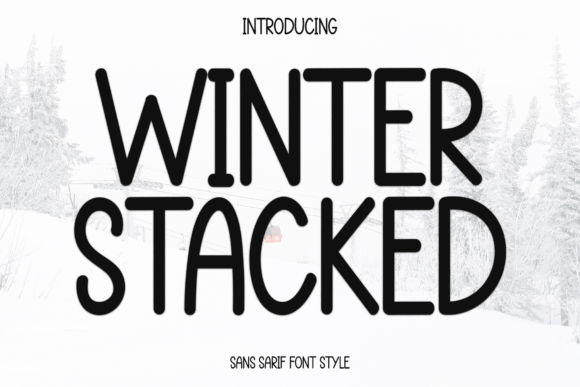
Winter Stacked Font: A Playful Sans-Serif Handwritten Typeface for Cheerful Designs
As the winter season approaches, designers and artists are on the lookout for typography that captures the festive and uplifting spirit of the time. If you’re searching for a font that can add a playful touch to your winter-themed designs, look no further than Winter Stacked. This delightful sans-serif handwritten typeface is perfect for creating cheerful and uplifting wall art, posters, and prints that bring a positive atmosphere to any space.
What is Winter Stacked Font?
Winter Stacked is a modern sans-serif handwritten font designed to evoke a sense of playfulness and joy. Its unique stacked lettering style gives it a distinctive look that’s both fun and eye-catching. The font’s clean lines and simple shapes make it highly legible, while its friendly and approachable feel makes it perfect for a wide range of design applications.
Key Features of Winter Stacked Font
- Playful sans-serif design: Winter Stacked’s sans-serif design gives it a modern and fresh feel that’s perfect for creating contemporary designs.
- Handwritten style: The font’s handwritten style adds a personal touch to your designs, making them feel more approachable and friendly.
- Stacked lettering style: The unique stacked lettering style gives Winter Stacked its distinctive look and makes it stand out from other fonts.
- Highly legible: Despite its playful design, Winter Stacked is highly legible, making it perfect for use in a wide range of design applications.
Uses for Winter Stacked Font
Winter Stacked is a versatile font that can be used in a wide range of design applications, including:
- Wall art: Create cheerful and uplifting wall art with Winter Stacked, perfect for adding a personal touch to any room.
- Posters: Use Winter Stacked to create eye-catching posters for events, promotions, or announcements.
- Prints: Add a playful touch to your prints with Winter Stacked, perfect for creating fun and engaging designs.
- Social media graphics: Use Winter Stacked to create engaging social media graphics that stand out from the crowd.
Benefits of Using Winter Stacked Font
There are many benefits to using Winter Stacked in your designs, including:
- Unique and eye-catching design: Winter Stacked’s stacked lettering style makes it stand out from other fonts and adds a unique touch to your designs.
- Playful and uplifting feel: The font’s playful design can bring a positive atmosphere to any space and add a cheerful touch to your designs.
- Highly versatile: Winter Stacked can be used in a wide range of design applications, from wall art to social media graphics.
- Easy to read: Despite its playful design, Winter Stacked is highly legible and easy to read, making it perfect for use in a wide range of design applications.
Tips for Using Winter Stacked Font
Here are some tips for getting the most out of Winter Stacked:
- Experiment with colors: Winter Stacked looks great in a wide range of colors, so don’t be afraid to experiment and find the perfect hue for your design.
- Play with layout: The font’s stacked lettering style makes it perfect for creative layouts and designs.
- Use it with other fonts: Winter Stacked pairs well with other fonts, so don’t be afraid to use it in combination with other typography.
- Keep it simple: While Winter Stacked is a playful font, it’s still highly legible, so keep your design simple and easy to read.
Winter Stacked is a unique and playful sans-serif handwritten typeface that’s perfect for creating cheerful and uplifting designs. Its stacked lettering style gives it a distinctive look that’s both fun and eye-catching, while its highly legible design makes it perfect for use in a wide range of applications. Whether you’re creating wall art, posters, prints, or social media graphics, Winter Stacked is a great choice for adding a playful touch to your designs.
- What is Winter Stacked font? Winter Stacked is a modern sans-serif handwritten font designed to evoke a sense of playfulness and joy.
- What is Winter Stacked font used for? Winter Stacked can be used in a wide range of design applications, including wall art, posters, prints, and social media graphics.
- Is Winter Stacked font easy to read? Yes, Winter Stacked is highly legible and easy to read, making it perfect for use in a wide range of design applications.